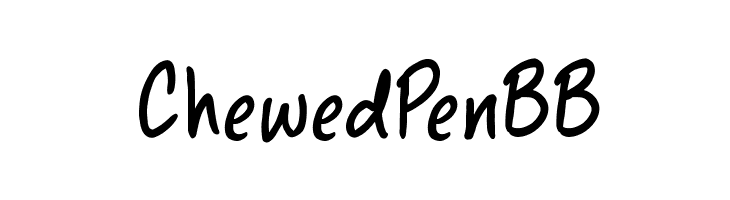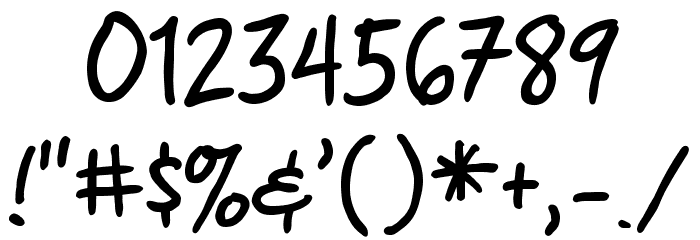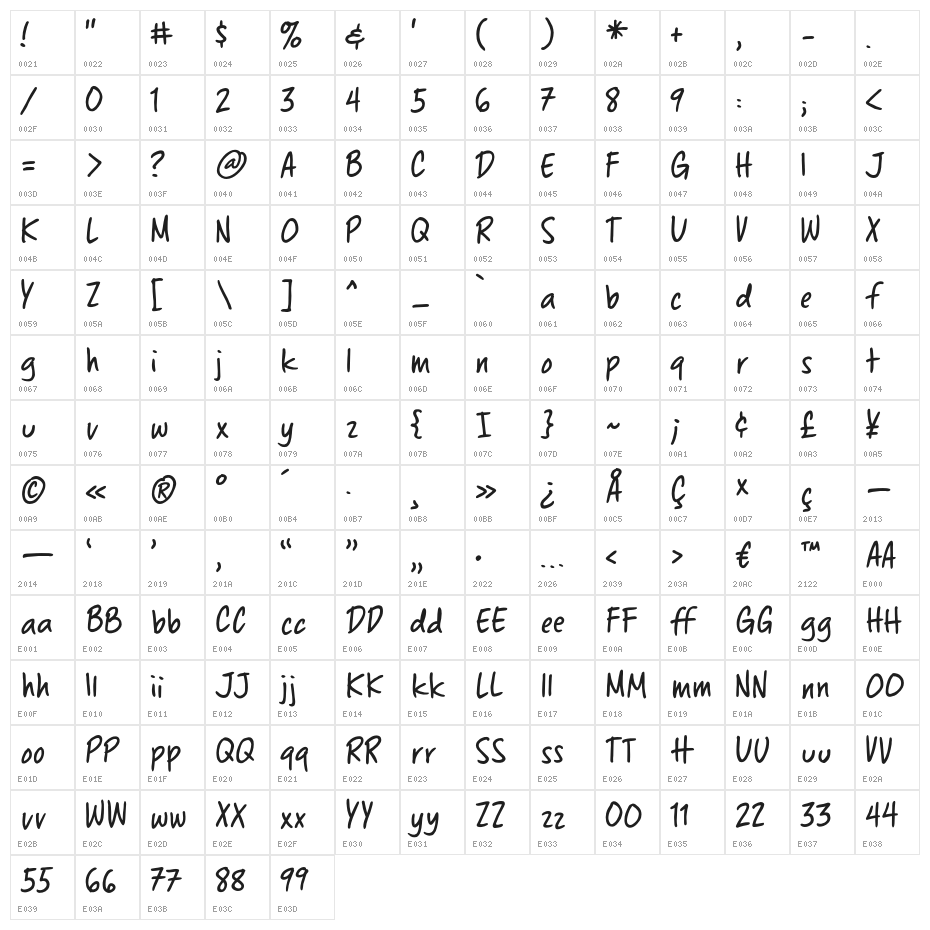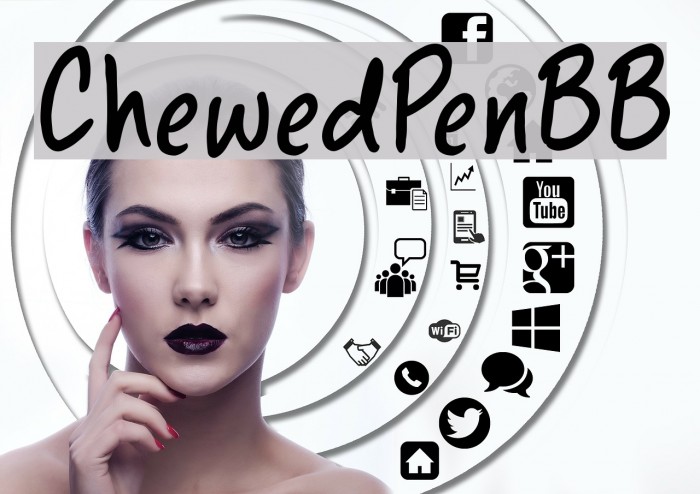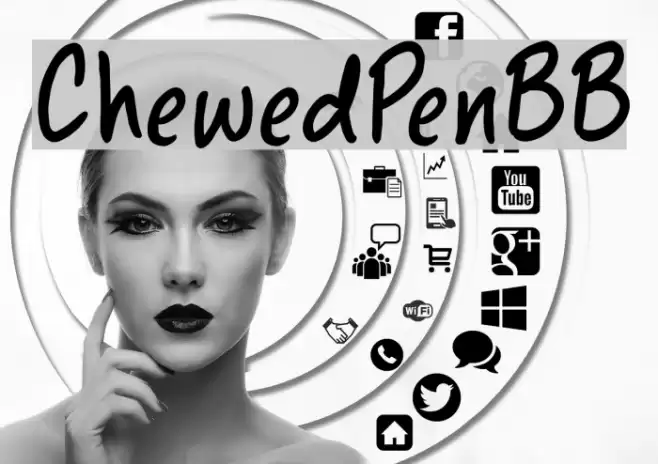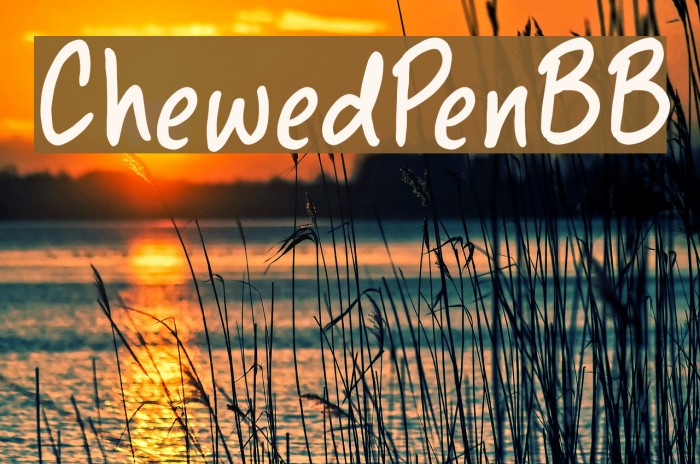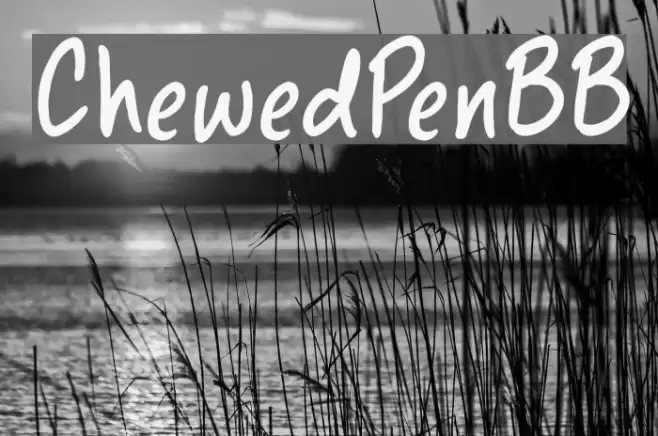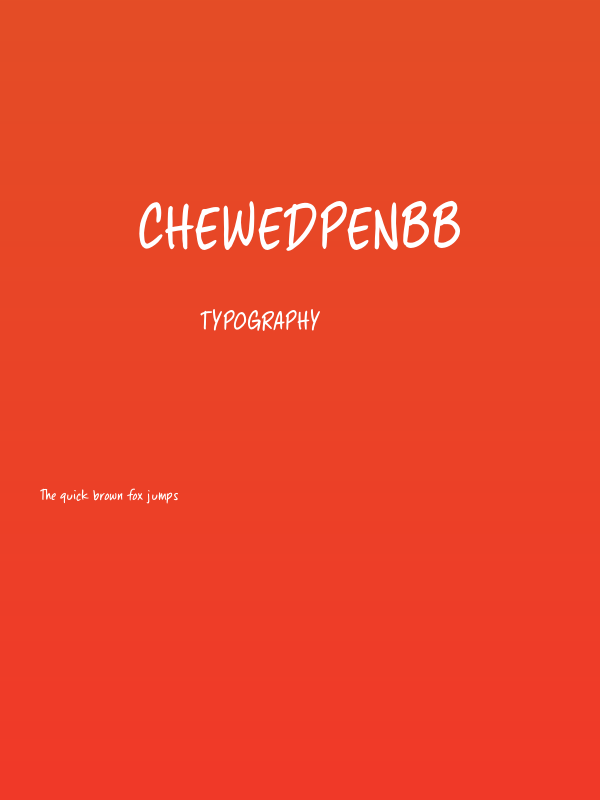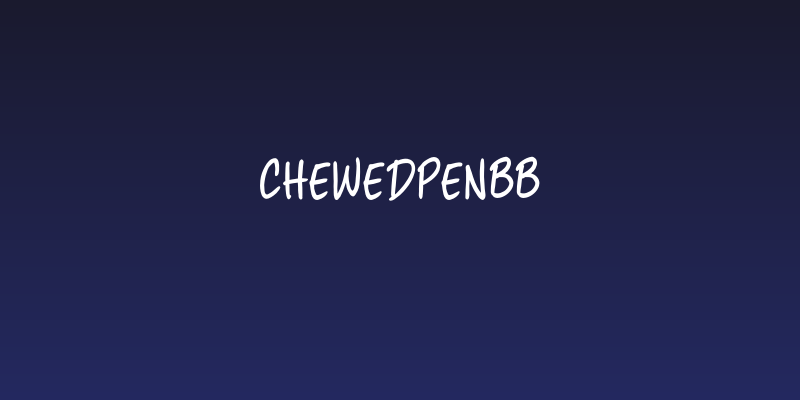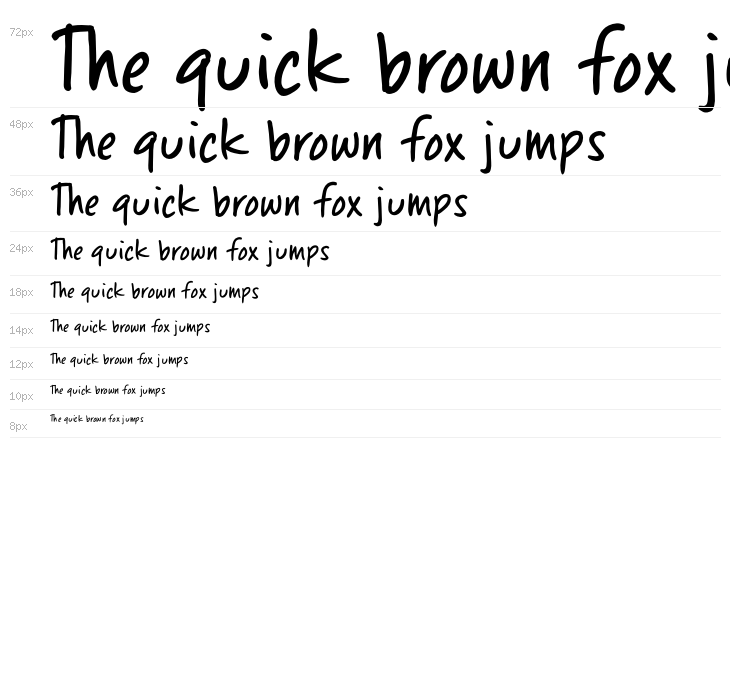
ChewedPenBB Font
ChewedPenBB Description
This playful and energetic font features a handwritten style that mimics the casual, spontaneous look of writing with a pen. The letters are slightly irregular, with varying stroke thickness that adds to its informal charm. The uppercase and lowercase letters maintain a consistent flow, while the numerals and special characters complement the overall aesthetic. This font exudes a sense of creativity and personal touch, making it ideal for projects that require a friendly and approachable feel.
| Overall Style | Casual, Creative |
| Proposed Projects | Ideal for greeting cards, personal blogs, children's books, and creative branding projects. |